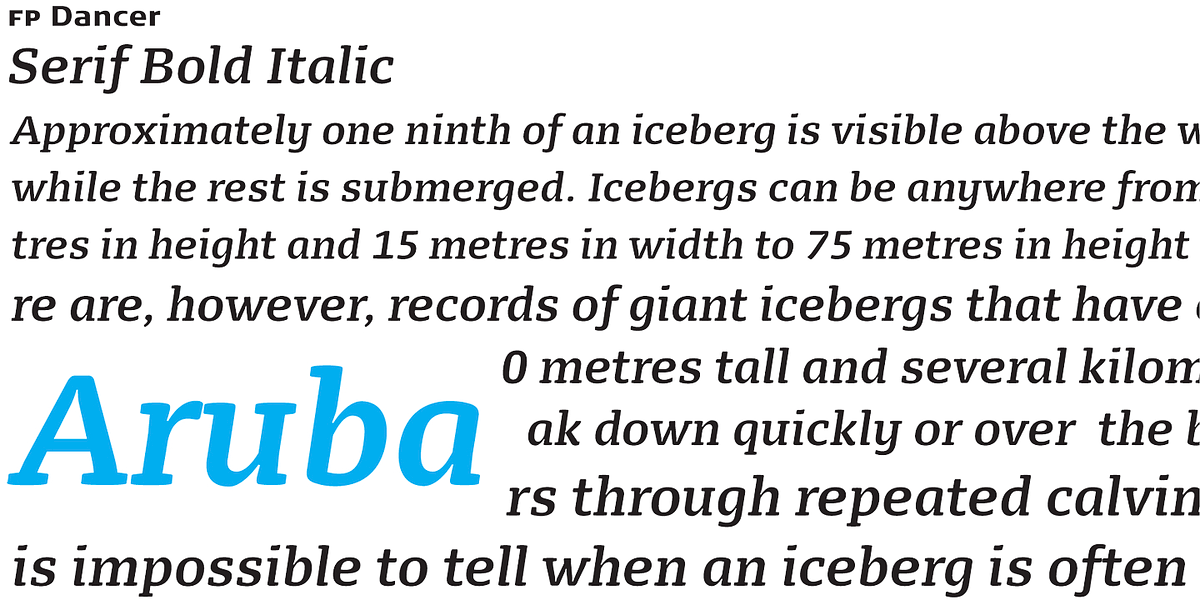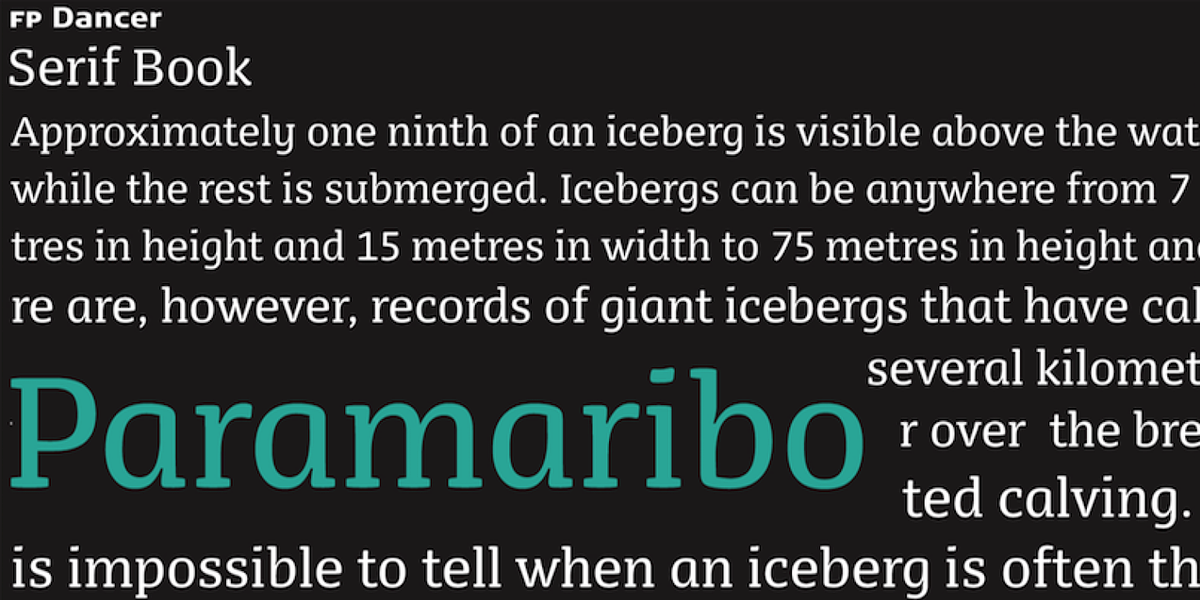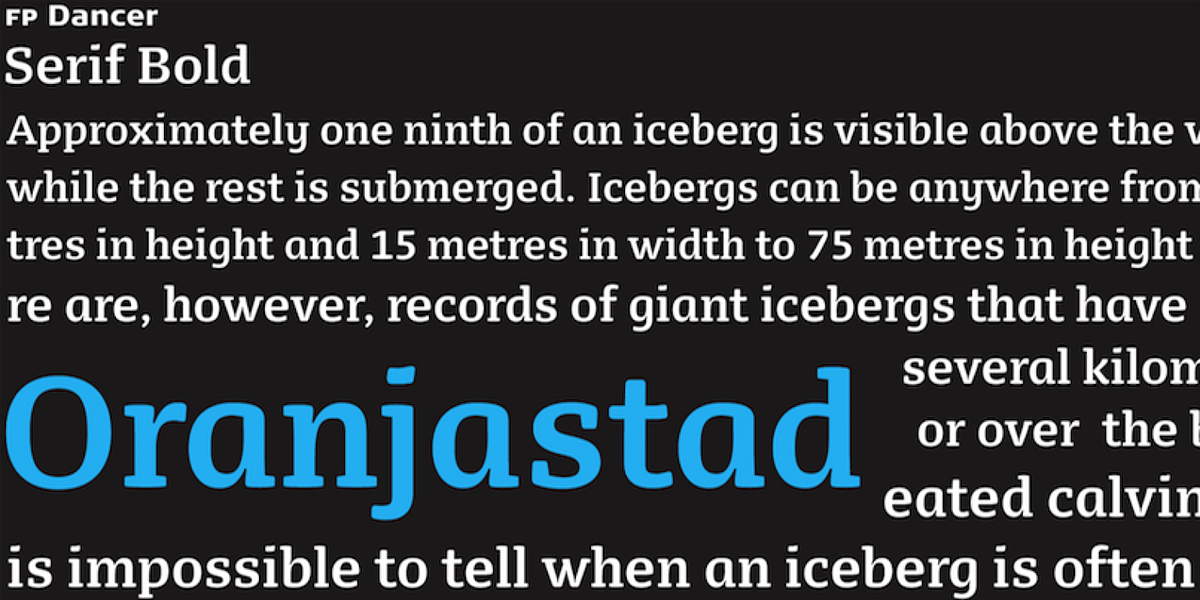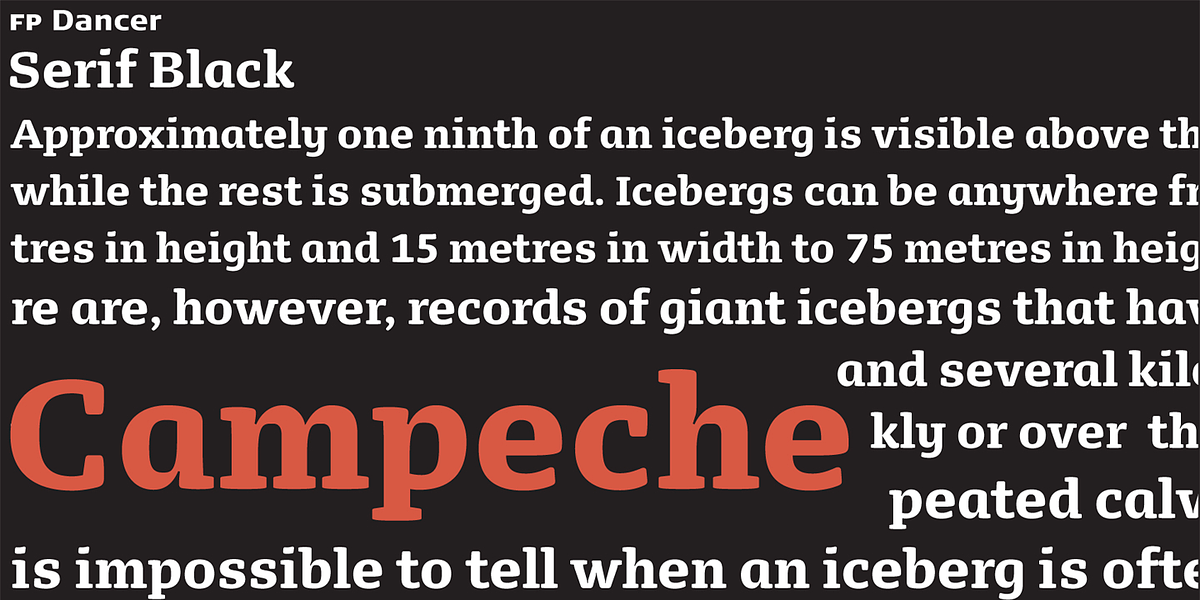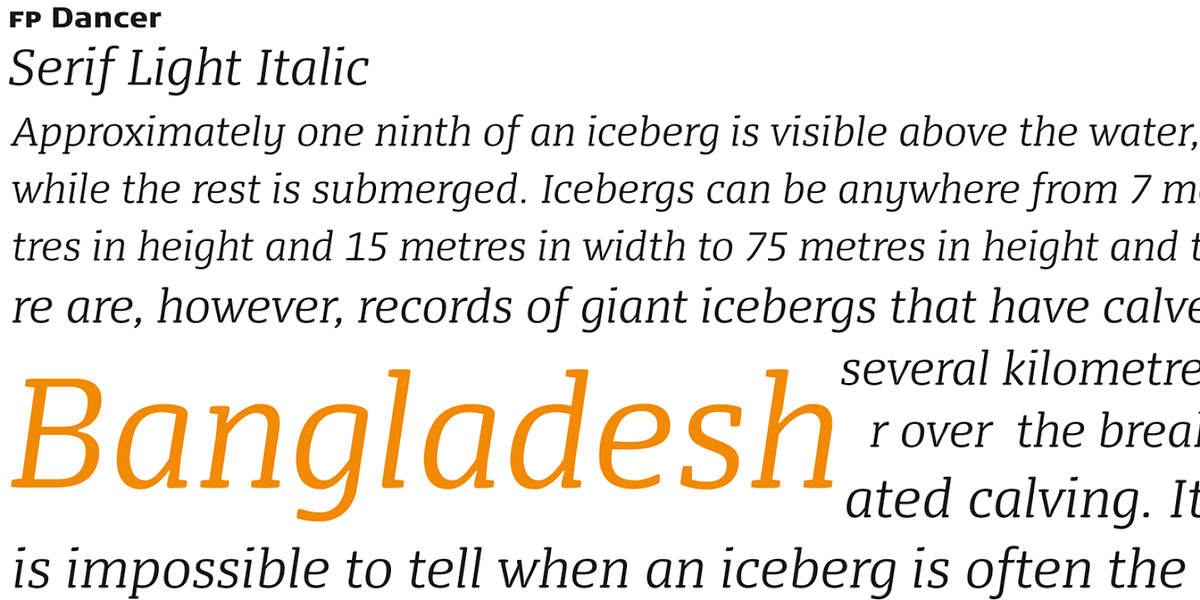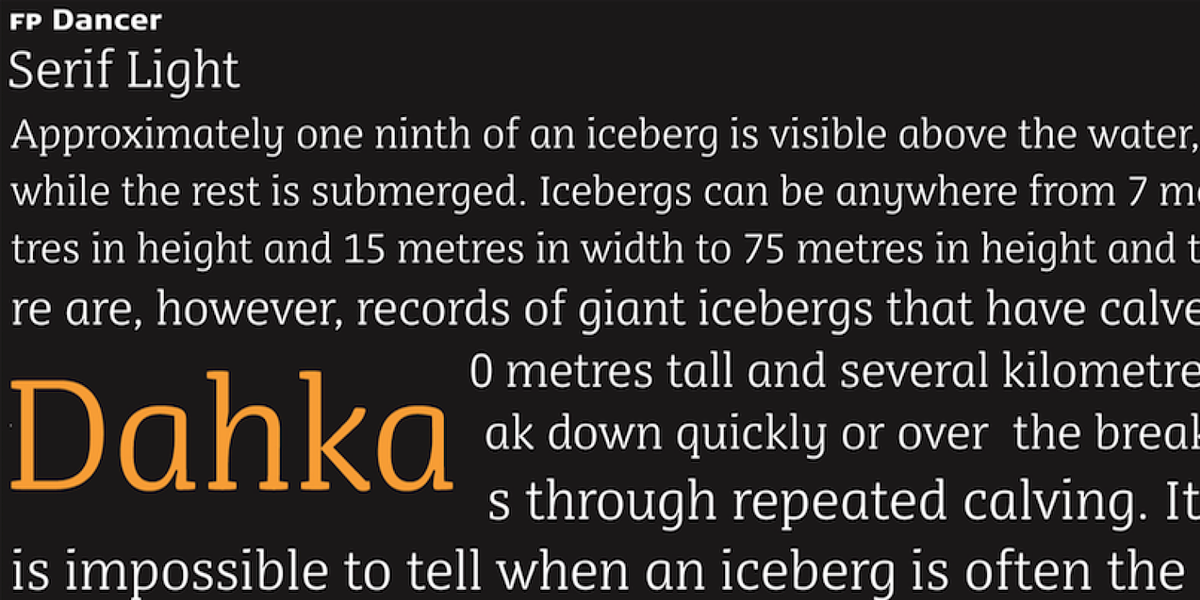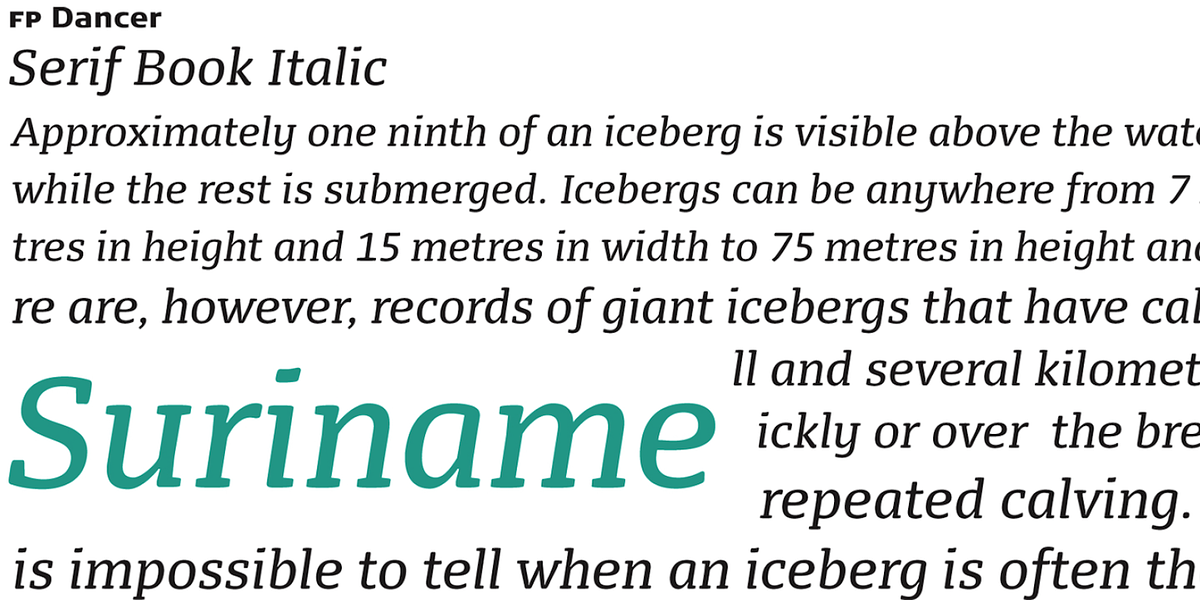
FP Dancer Serif
FP Dancer Serif is a humanist slab serif font designed to be both soft and friendly while maintaining strength. It was recognized as one of the best typefaces of 2007 by Typographica.org.